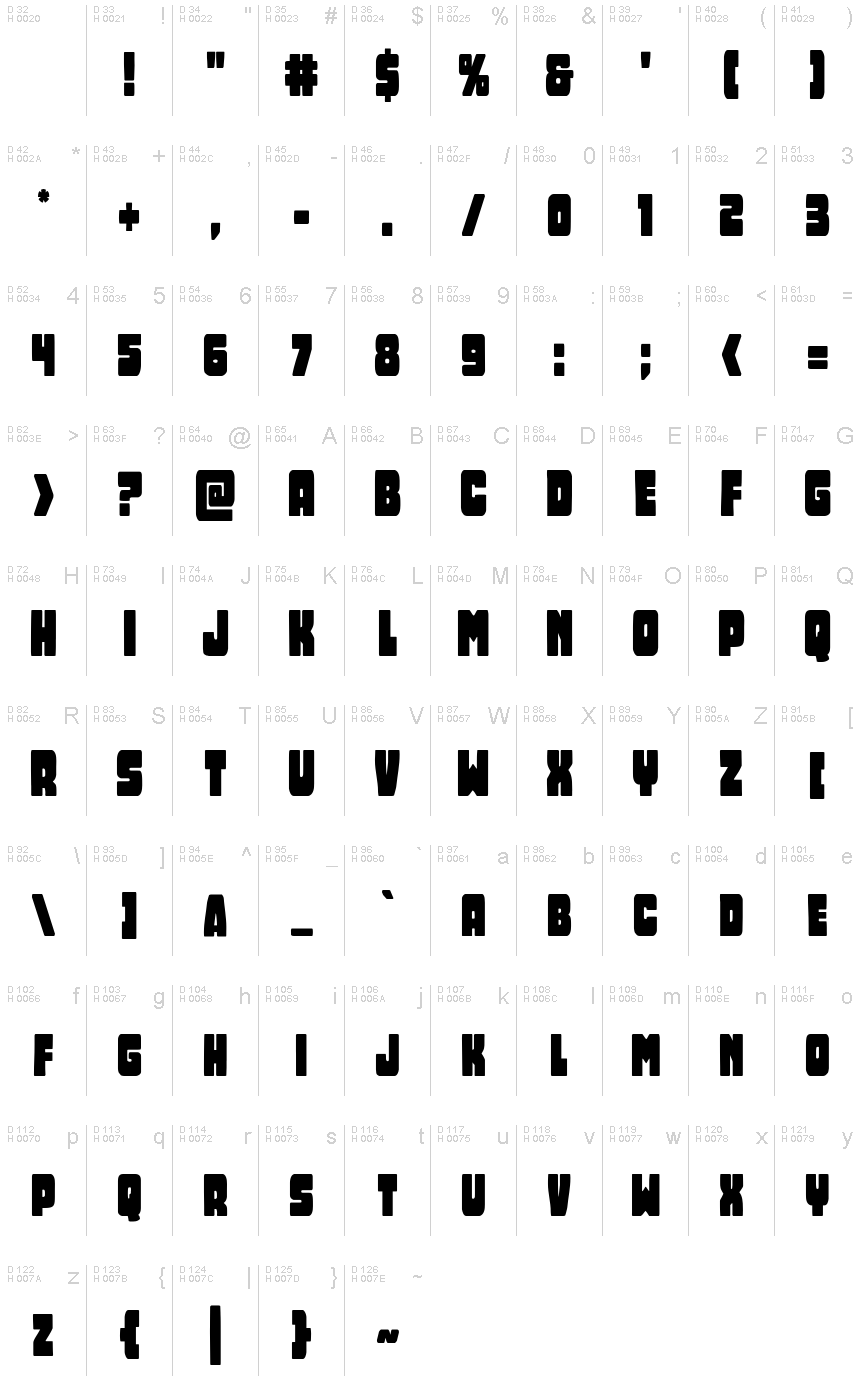
Opus Mundi Condensed
Opus Mundi Condensed is a bold, striking font that commands attention. Its strong, geometric letterforms and condensed width create an impactful, yet refined aesthetic. The font's sharp edges and clean lines convey a sense of authority and modernity, making it well-suited for headlines, posters, and branding applications that need to make a powerful visual statement.
The font's versatility extends beyond headline use, as its legibility and condensed form also lend themselves well to body text and informational design. Opus Mundi Condensed's bold presence can help draw the eye and organize content, making it a valuable tool for designers seeking to create visually compelling and structurally sound layouts.